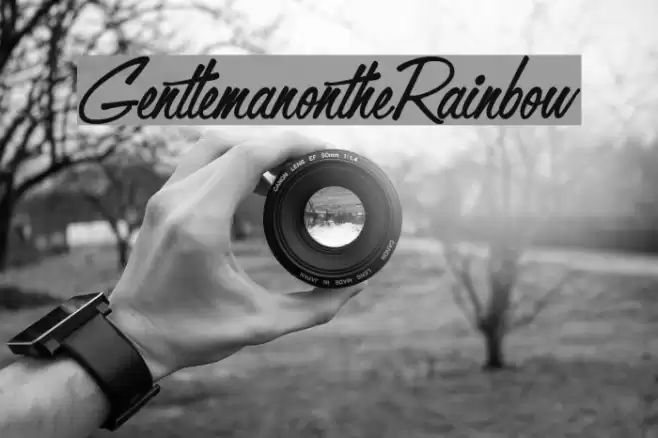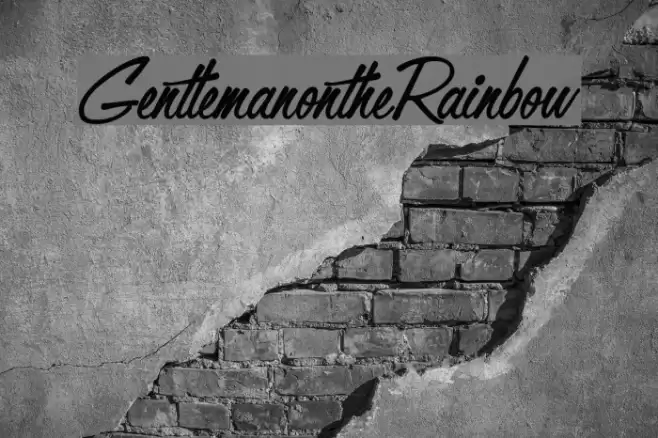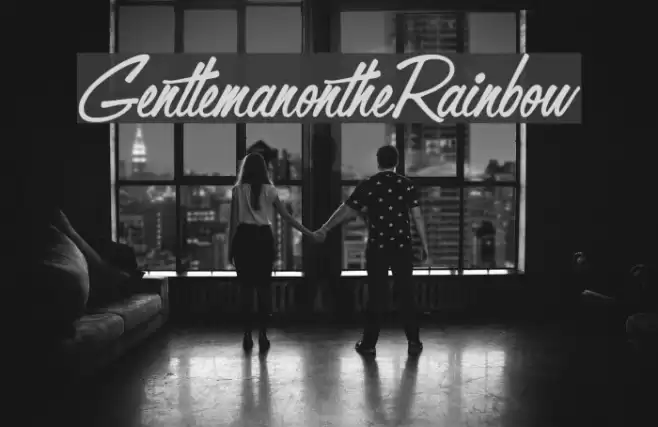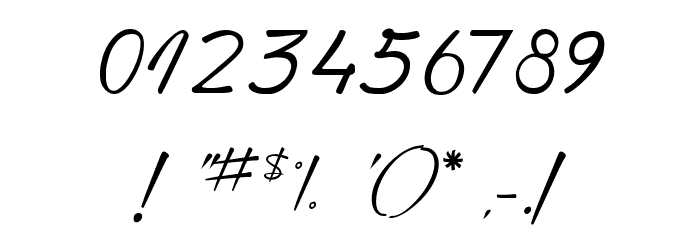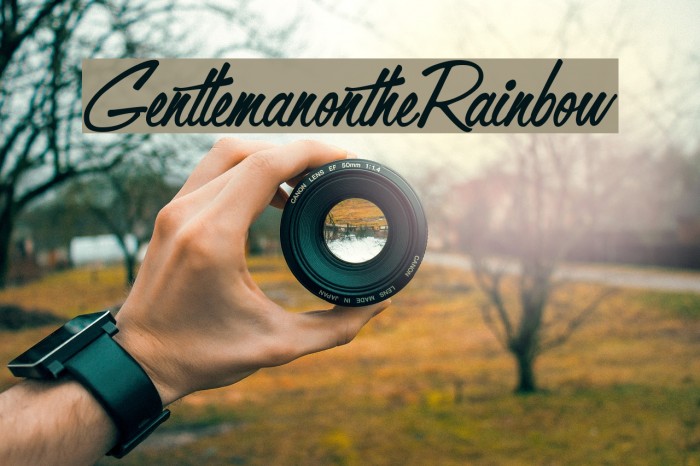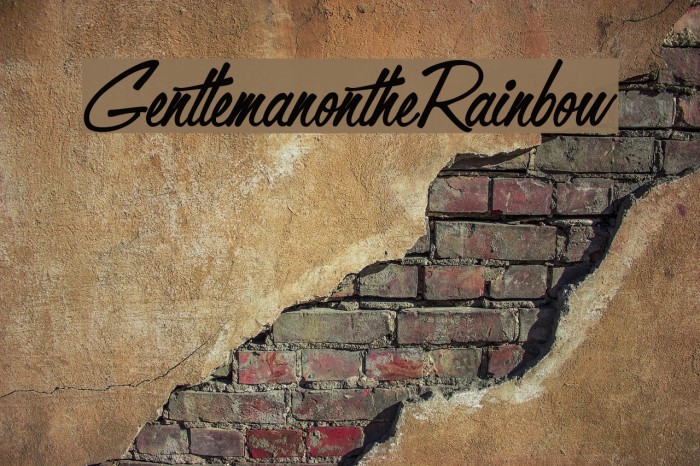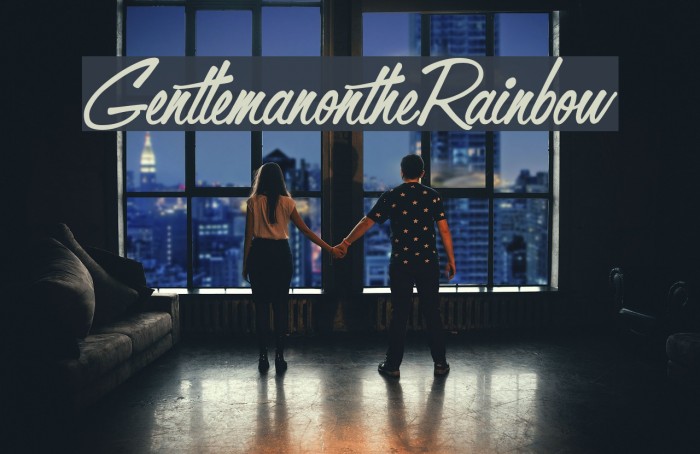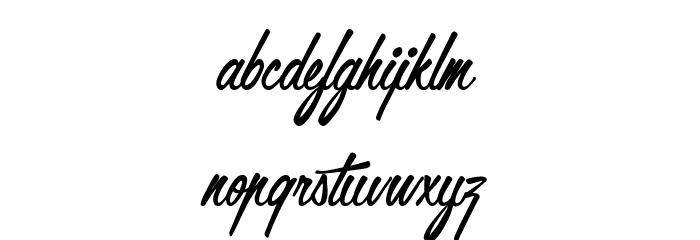
GentlemanontheRainbow Font
GentlemanontheRainbow Description
This font exudes a sense of elegance and fluidity, characterized by its script style that mimics natural handwriting. The letters are connected in a cursive manner, giving it a seamless and flowing appearance. The uppercase letters are bold and slightly slanted, while the lowercase letters maintain a consistent and smooth flow. The numerals and special characters are designed to complement the overall script style, maintaining the same slanted and connected look. This font is ideal for projects that require a personal touch or a sense of sophistication, such as invitations, greeting cards, or branding materials.
An elegant script font with a fluid, cursive style from Uncategorized fonts.
- Proposed Projects: Ideal for wedding invitations, greeting cards, personal branding, and elegant signage.
- Character Spacing: Tight
- Overall Style: Elegant
- Use Case: Headlines, Invitations, Branding